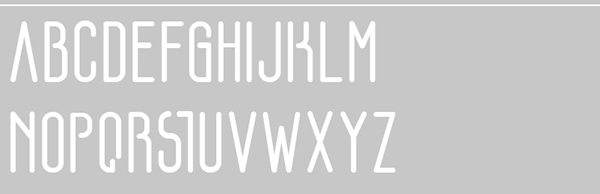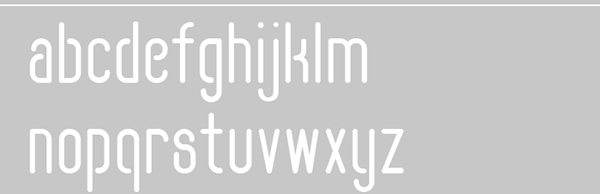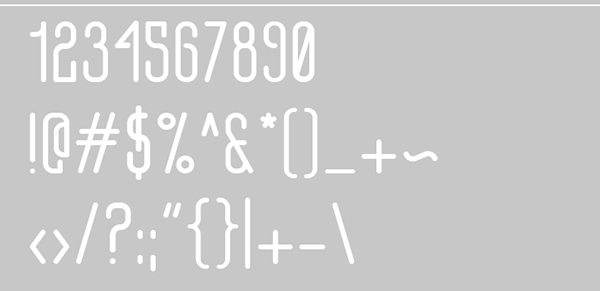
Fonts Free Font Of The Day #76 – SYNTHESIA Font by Yayang Apryana December 24, 2014 SYNTHESIA Font a Personal project, Creating a simple font with detail concept. Free Font Of The Day SYNTHESIA is designed by Cahya Sofyan. Download